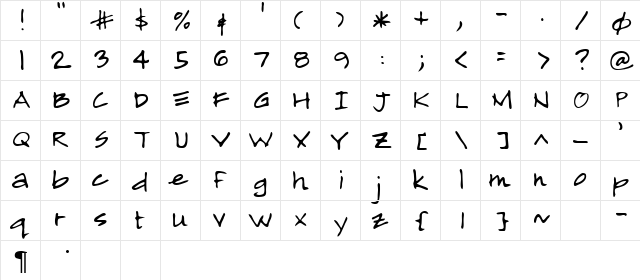
Almagro Regular
Design Context for Almagro Typeface
Almagro is a composed and adaptable typeface that performs quietly and consistently across a wide range of design contexts.